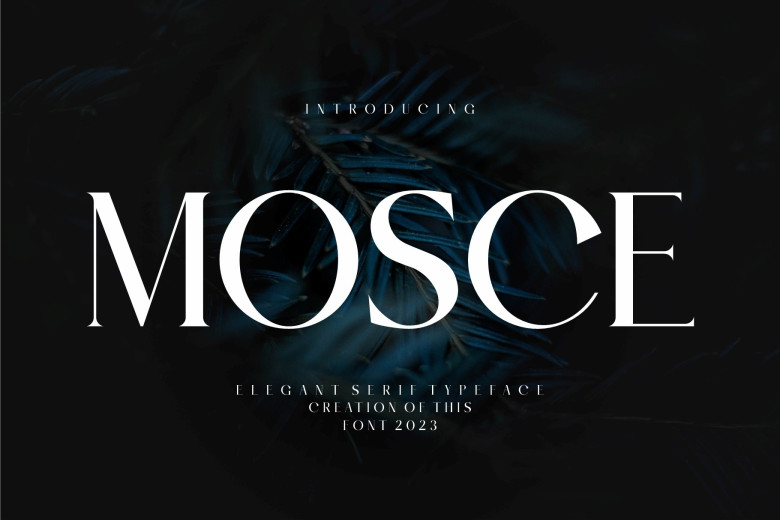
Mosce Font
Mosce is a contemporary and sophisticated serif font with timeless elegance, which exudes professionalism while remaining elegant and refined. Its crisp shapes and proportions create an aesthetic which is both pleasing and refined, which make this font versatile enough to use in various designs, such as editorial articles or branding campaigns.
Furthermore, this font’s professionalism as well as elegance makes it the go-to font choice for sophisticated and elegant projects.
Mosce Serif Font